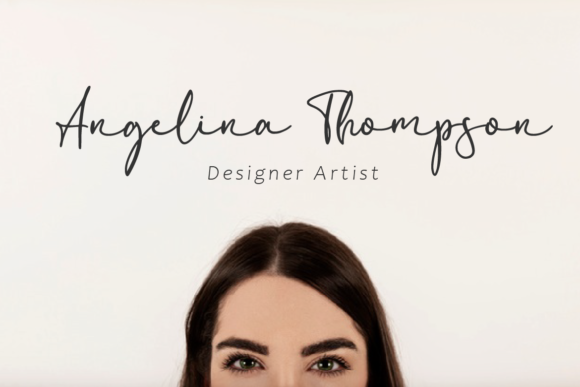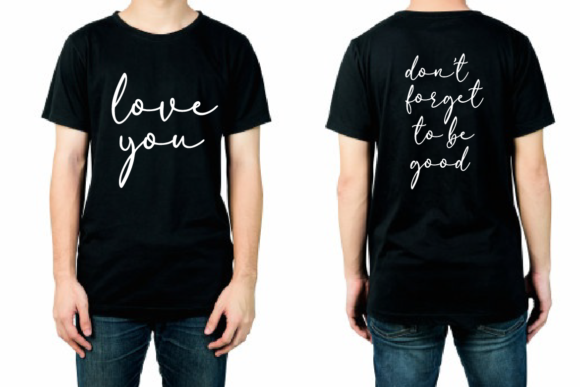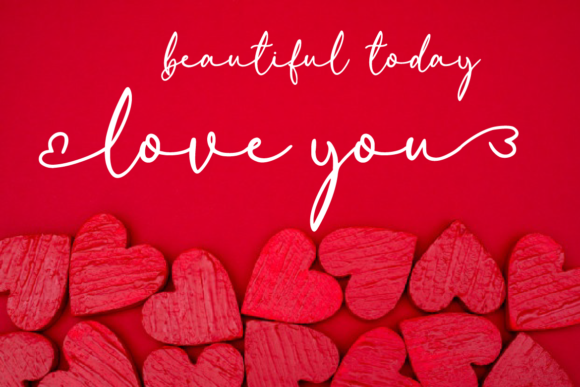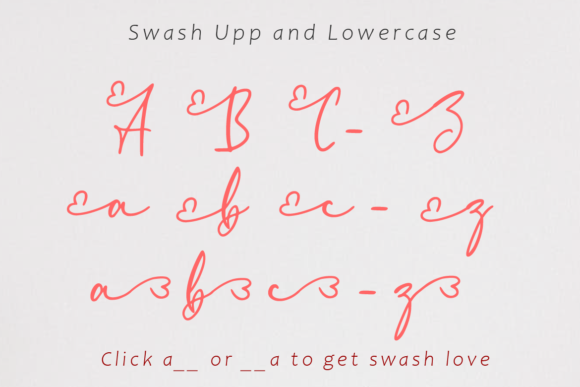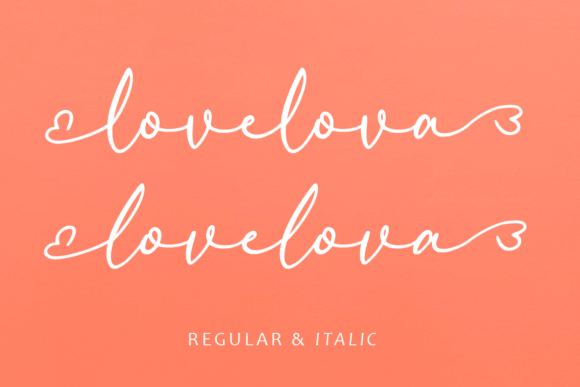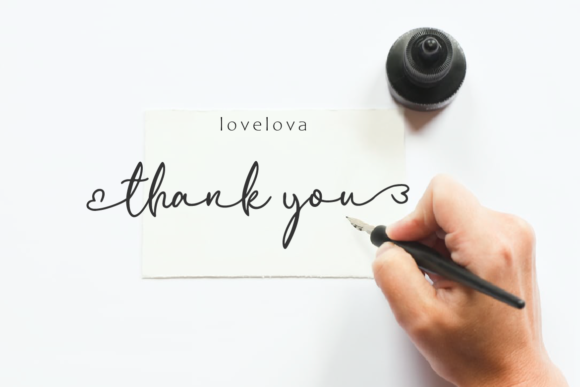
Introduction to Lovelova Font
Lovelova is a sweet and dainty calligraphy font.
It is suitable for branding, quotes, wedding invitations, and any romantic projects that you wish to develop This font is PUA encoded which means you can access all of the glyphs and swashes with ease.
Key Features of Lovelova Font